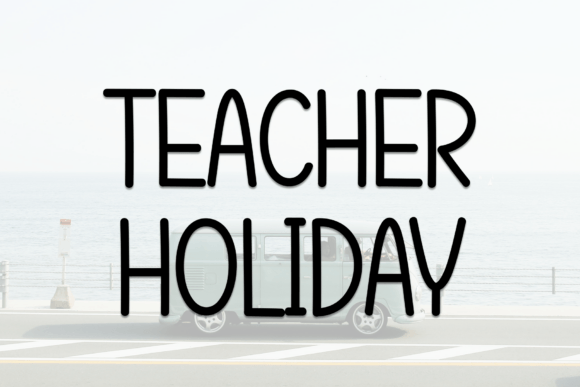
Teacher Holiday: The Marker-Style Font Redefining Casual Elegance
In a digital landscape often dominated by rigid sans-serifs and overly polished serifs, there is a growing appetite for typography that feels human, immediate, and authentic. This shift has brought Teacher Holiday into the spotlight as a standout choice for designers seeking to bridge the gap between luxury and approachability. Unlike traditional handwritten scripts that lean heavily into cursive flourishes or formal calligraphy, Teacher Holiday is a handwritten font that looks like it was drawn with a marker. This specific aesthetic creates a unique visual texture—one that conveys confidence and spontaneity without sacrificing readability or style.
The appeal of this typeface lies in its ability to capture a moment in time. It mimics the fluid motion of a broad-tip marker gliding across paper, resulting in strokes that vary in thickness and weight naturally. For professionals, creators, and business owners navigating the modern market, choosing the right font is no longer just about legibility; it is about setting a tone. Teacher Holiday offers a relaxed and sporty feel, making it an unexpected yet powerful tool for branding, logos, wedding supplies, greeting cards, fashion lookbooks, and marketing promotions.
The Evolution of Handwritten Typography in Modern Design
Typography trends have undergone a significant transformation over the last decade. We have moved away from the sterile minimalism of the early 2000s toward designs that embrace imperfection and personality. This evolution reflects a broader cultural shift where audiences value authenticity over corporate perfection. In this context, fonts that simulate real-world tools, such as markers, pens, or paintbrushes, have gained immense traction. They suggest a narrative of creation, implying that a human hand guided the design process rather than an algorithm.
Teacher Holiday fits perfectly into this zeitgeist. It does not attempt to replicate the precision of a fountain pen or the ornate loops of a wedding invitation script from a century ago. Instead, it embraces the boldness and energy of a marker. This distinction is crucial for modern workflows where speed and impact are paramount. The font’s inherent "sporty" quality aligns with contemporary lifestyle brands that prioritize movement, energy, and dynamism. It signals to the viewer that the brand is active, engaged, and unafraid to stand out.
Furthermore, the rise of social media and mobile-first consumption has changed how we interact with text. On small screens, intricate details can get lost, but the bold strokes of a marker-style font remain distinct and impactful. This practicality makes Teacher Holiday particularly relevant for digital marketers and content creators who need their messages to pop on Instagram stories, TikTok overlays, and mobile advertisements. The font’s clarity ensures that the message is received instantly, while its casual nature encourages engagement.
Balancing Luxury and Casual Aesthetics
One of the most challenging tasks in design is achieving a balance between high-end sophistication and down-to-earth accessibility. Many brands struggle to appear luxurious without seeming aloof or inaccessible. Conversely, aiming for a casual vibe can sometimes result in a design that looks amateurish. Teacher Holiday solves this paradox by offering a look that is simultaneously luxurious and elegant yet undeniably casual.
The key to this balance lies in the font's stroke weight and structure. The marker-like quality gives it a premium feel, reminiscent of high-quality stationery or bespoke packaging. When used in branding or logos, it elevates the perceived value of a product. Imagine a boutique fitness studio or a sustainable fashion line using this font for their logo. The sporty feel resonates with their active demographic, while the handwritten elegance suggests a curated, high-quality experience. It tells the consumer, "We care about our craft, but we aren't trying too hard."
This duality extends to wedding supplies and greeting cards as well. While traditional weddings often rely on classic calligraphy, modern couples are increasingly opting for themes that reflect their personal journeys and personalities. A wedding suite featuring Teacher Holiday might be perfect for a destination wedding, a beach ceremony, or a celebration that values joy and relaxation over rigid formality. The font adds a touch of warmth and intimacy, making the invitations feel like a personal note from the couple rather than a mass-produced announcement.
Practical Applications Across Industries
The versatility of Teacher Holiday allows it to transcend specific niches, finding utility in diverse sectors ranging from education to high fashion. Its adaptability stems from its neutral yet expressive character, which can be paired with almost any secondary typeface to create a cohesive visual identity.
Integrating Teacher Holiday into Creative Workflows
For designers and freelancers, integrating a new font into their workflow requires more than just downloading a file; it involves understanding how it interacts with other design elements. Because Teacher Holiday has a strong personality, it works best when given space to breathe. Overcrowding the layout can diminish its impact and make the design feel cluttered.